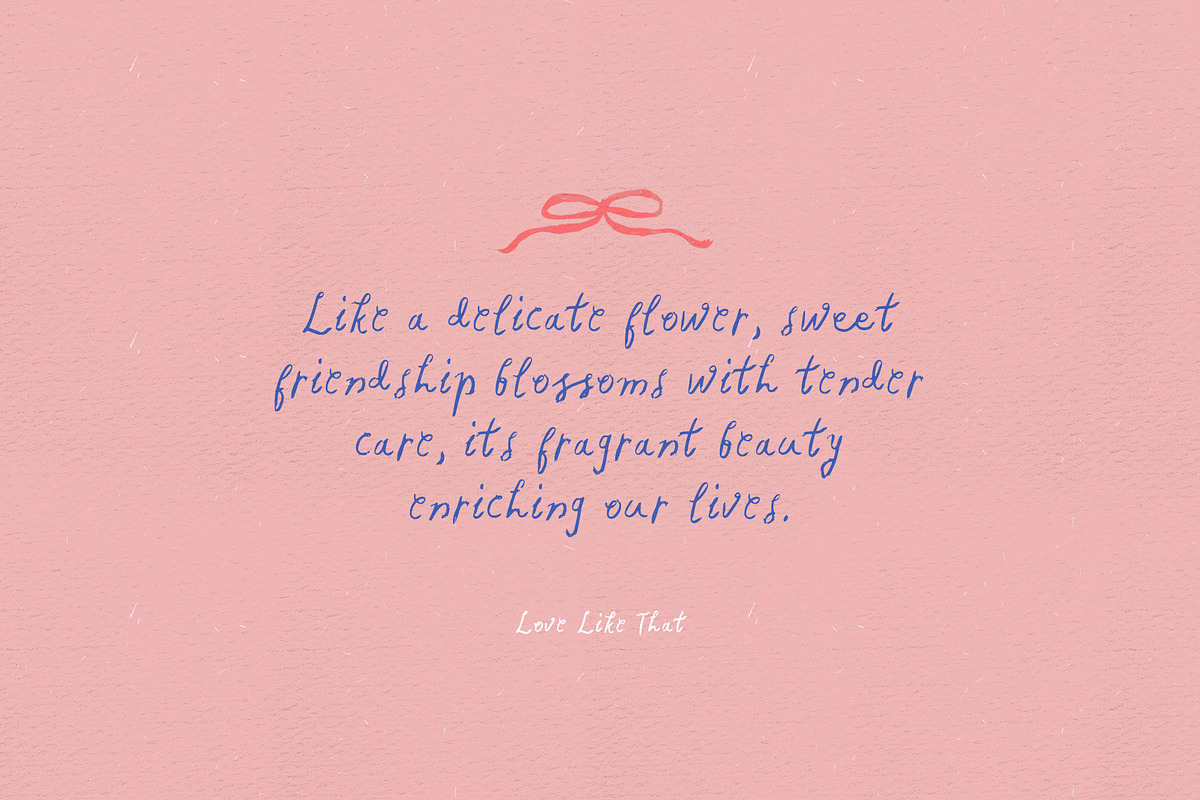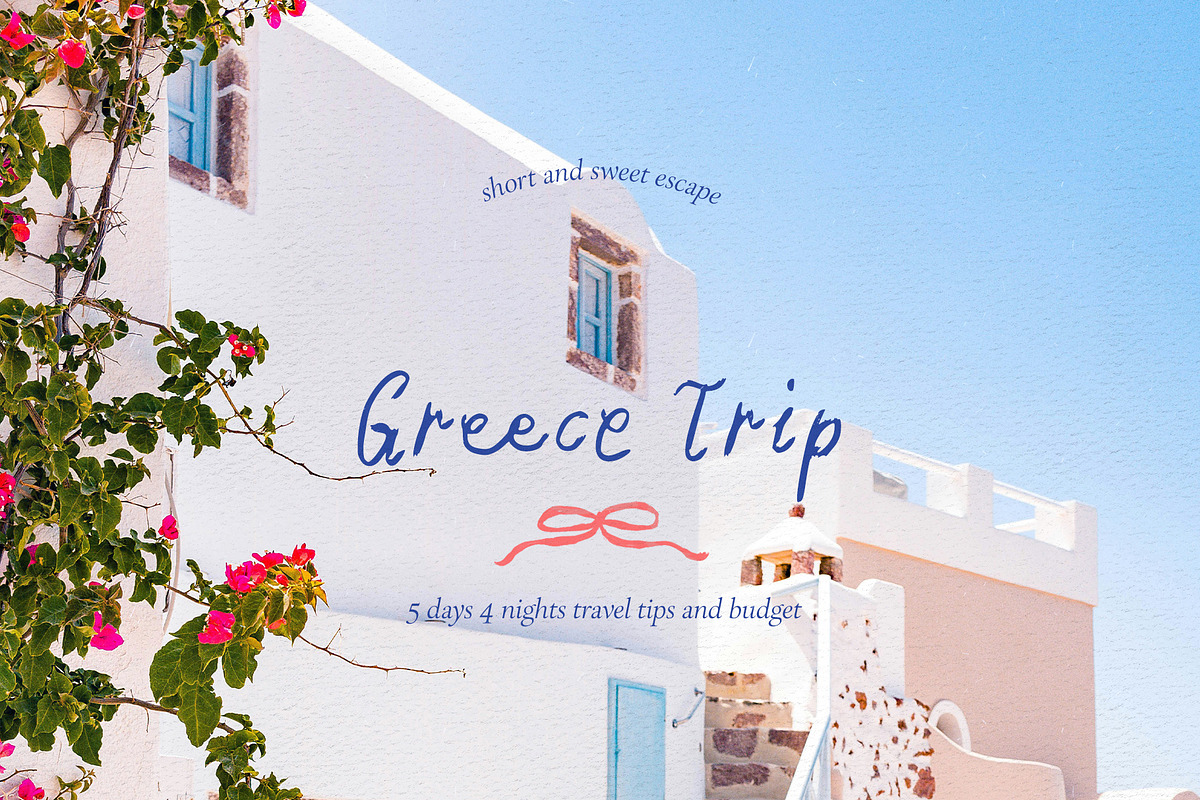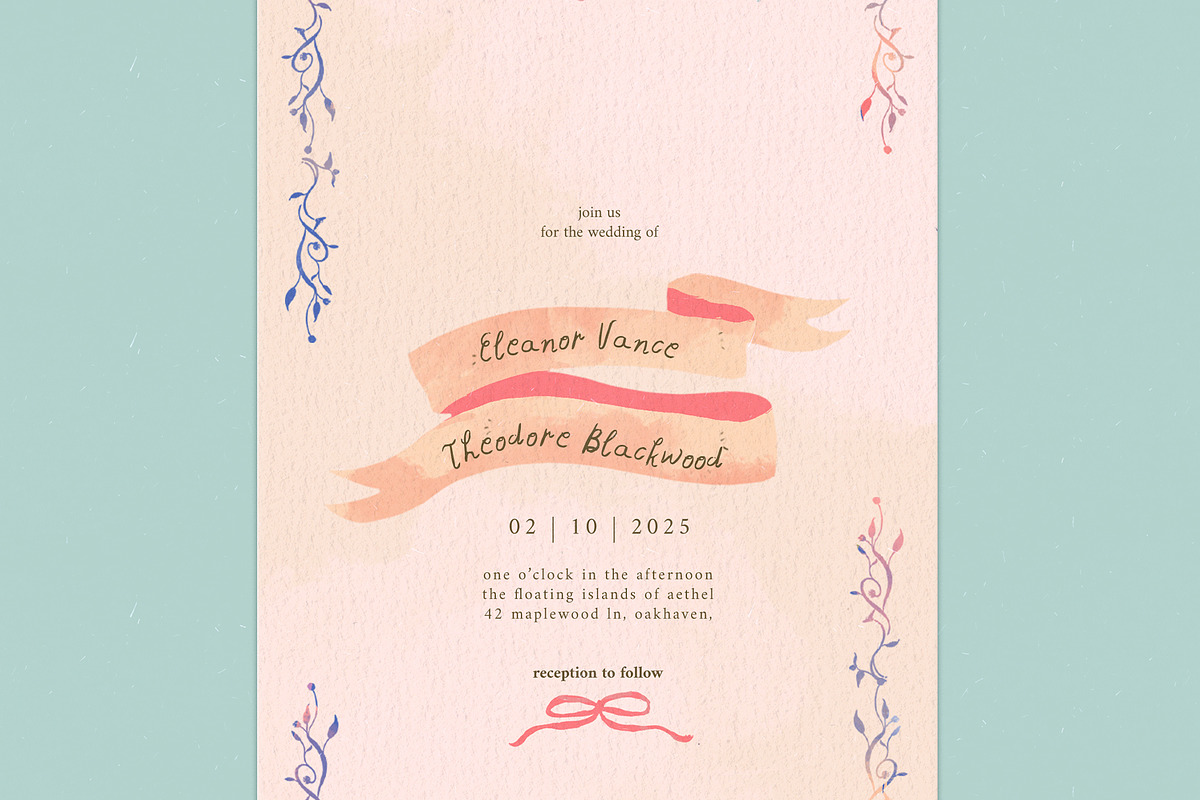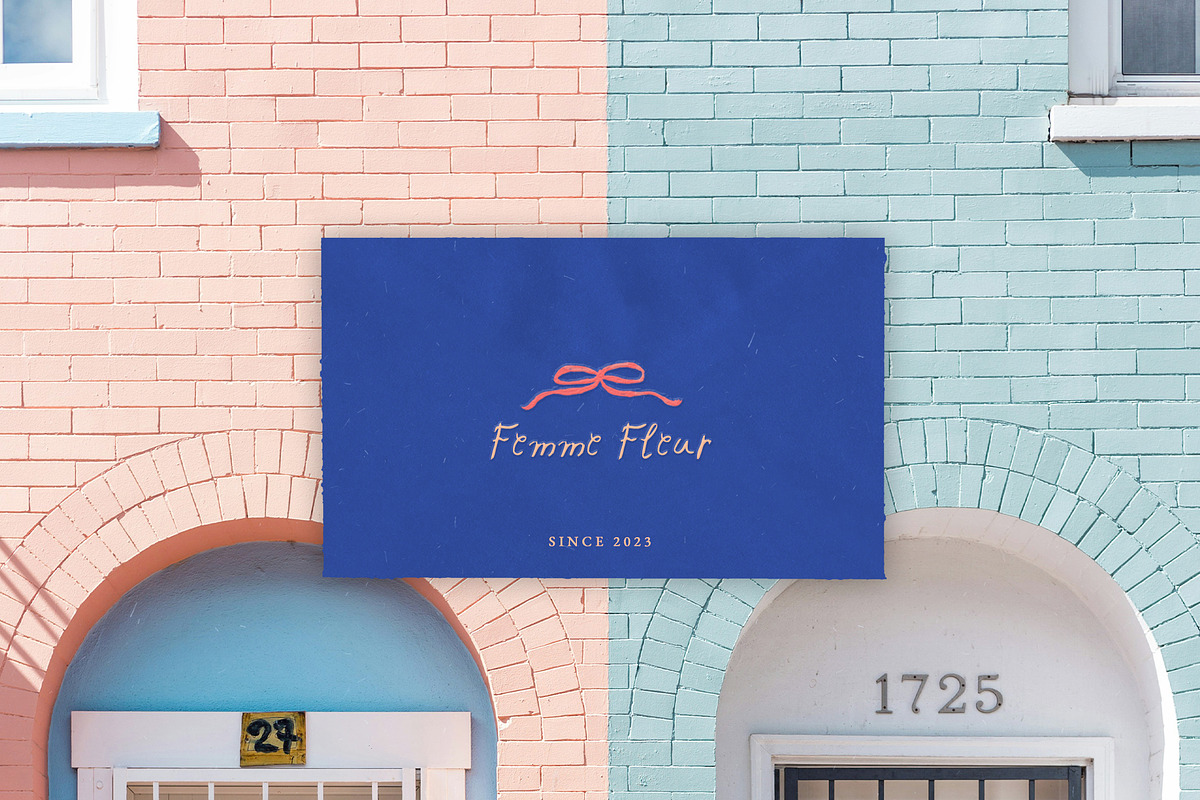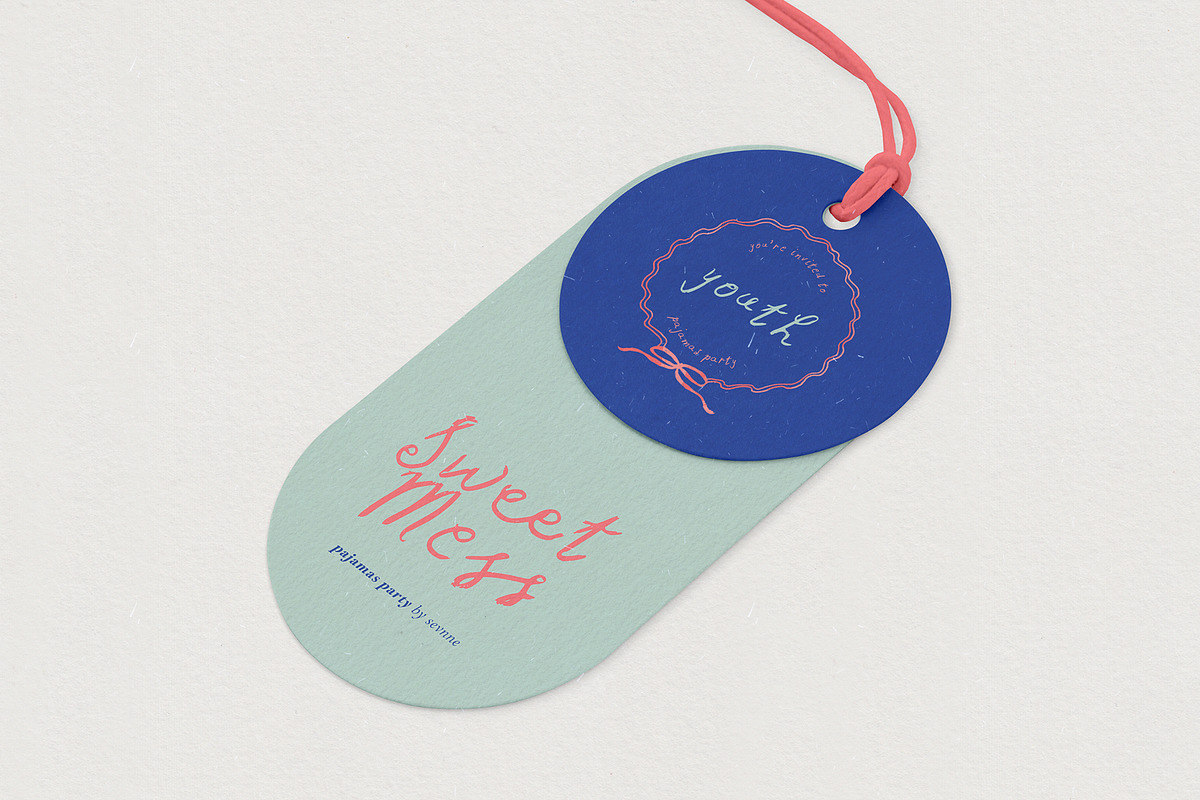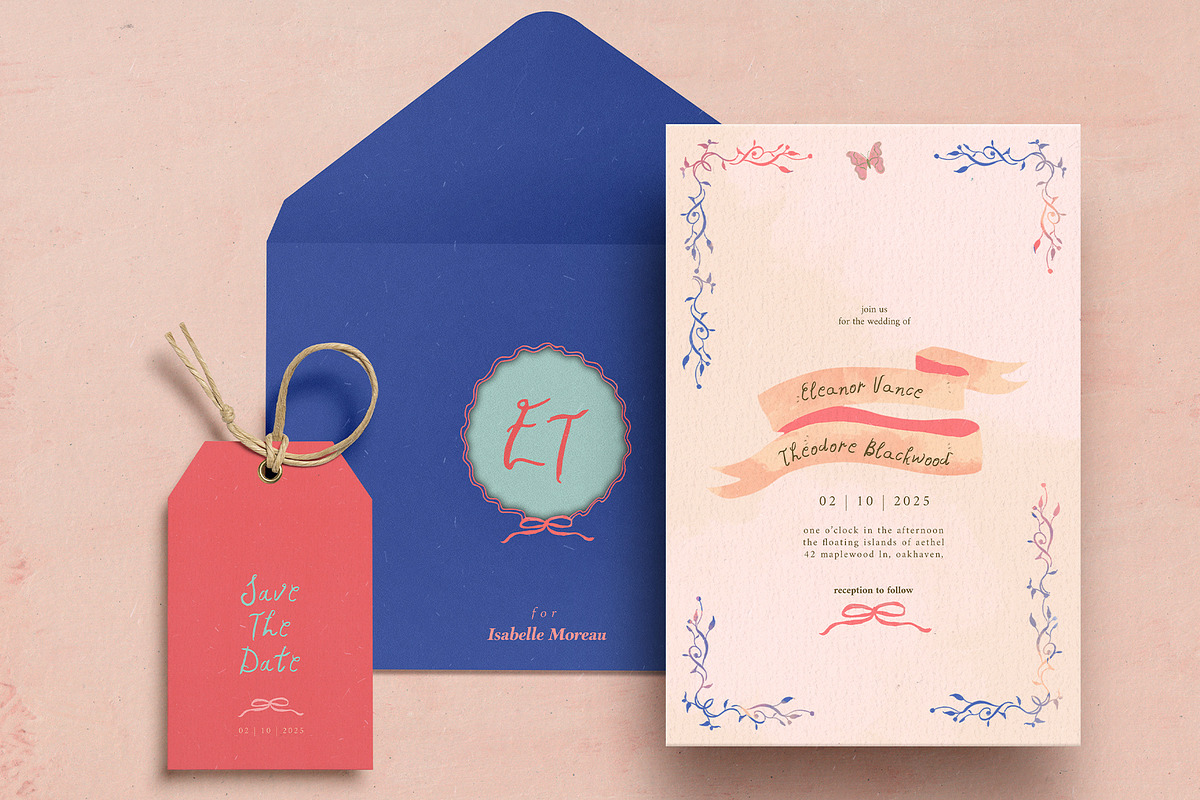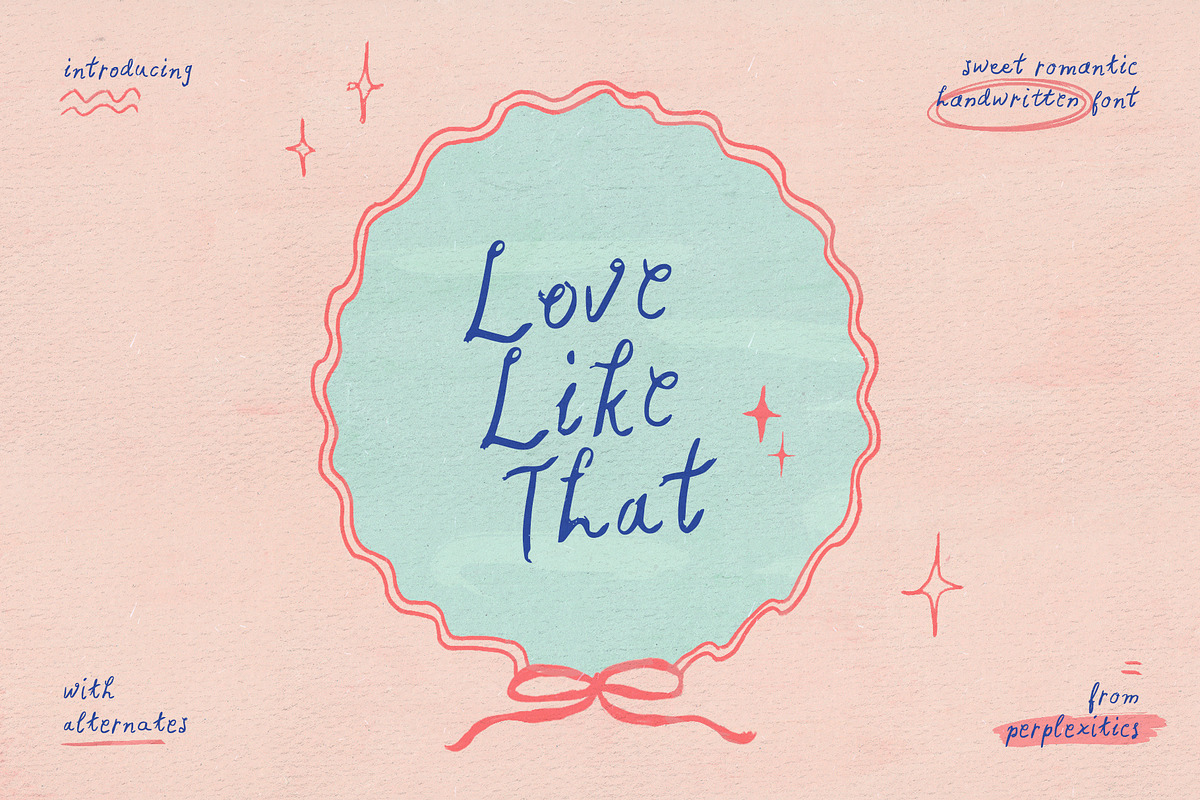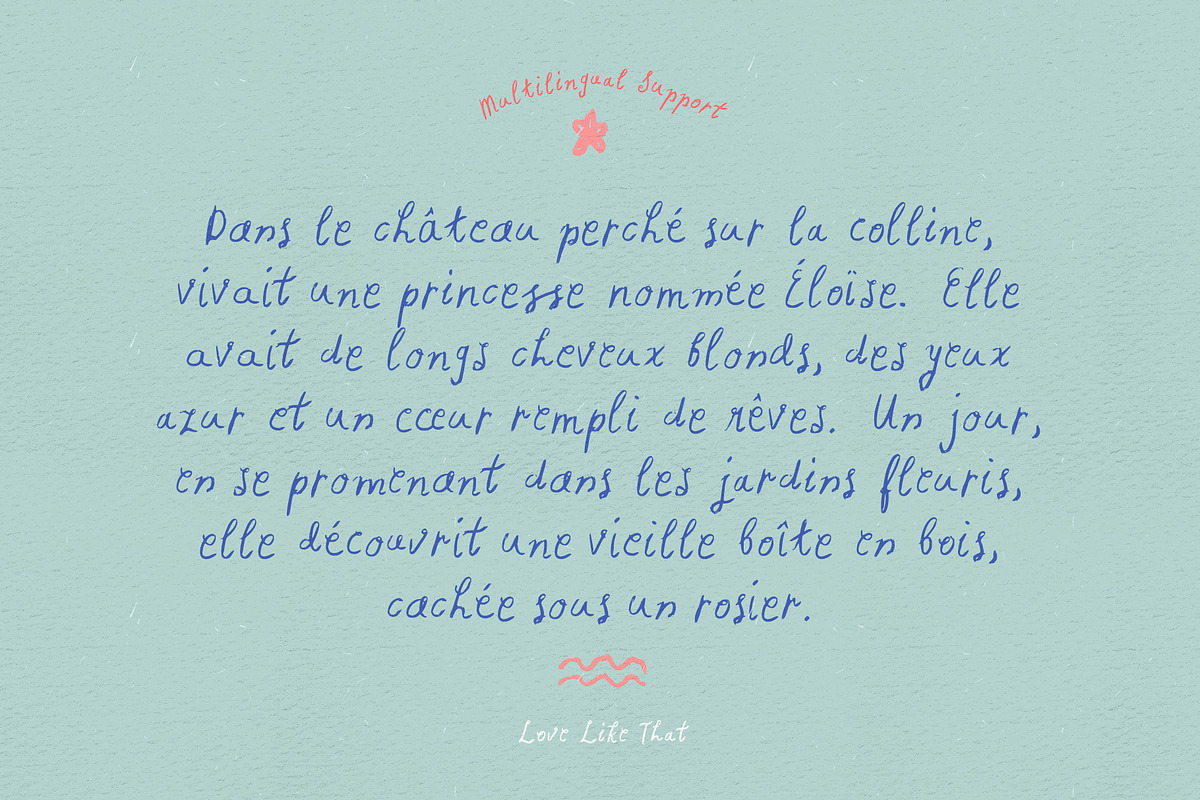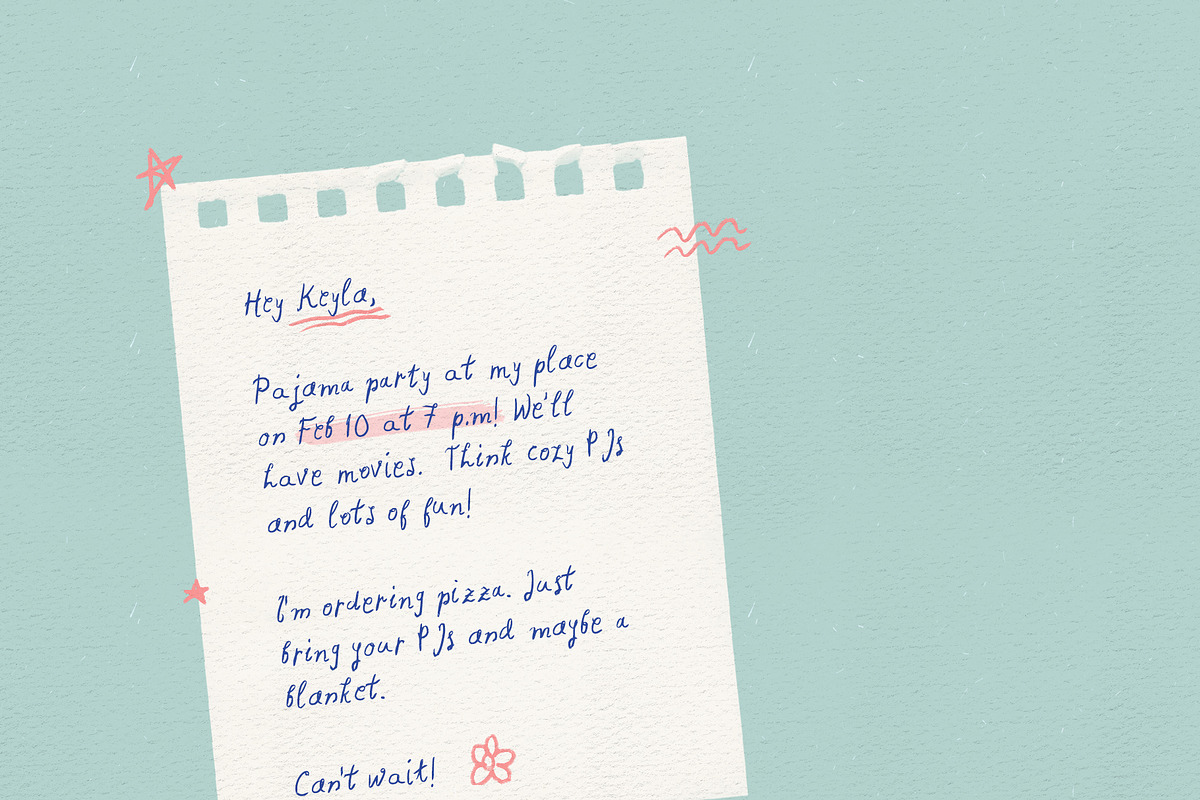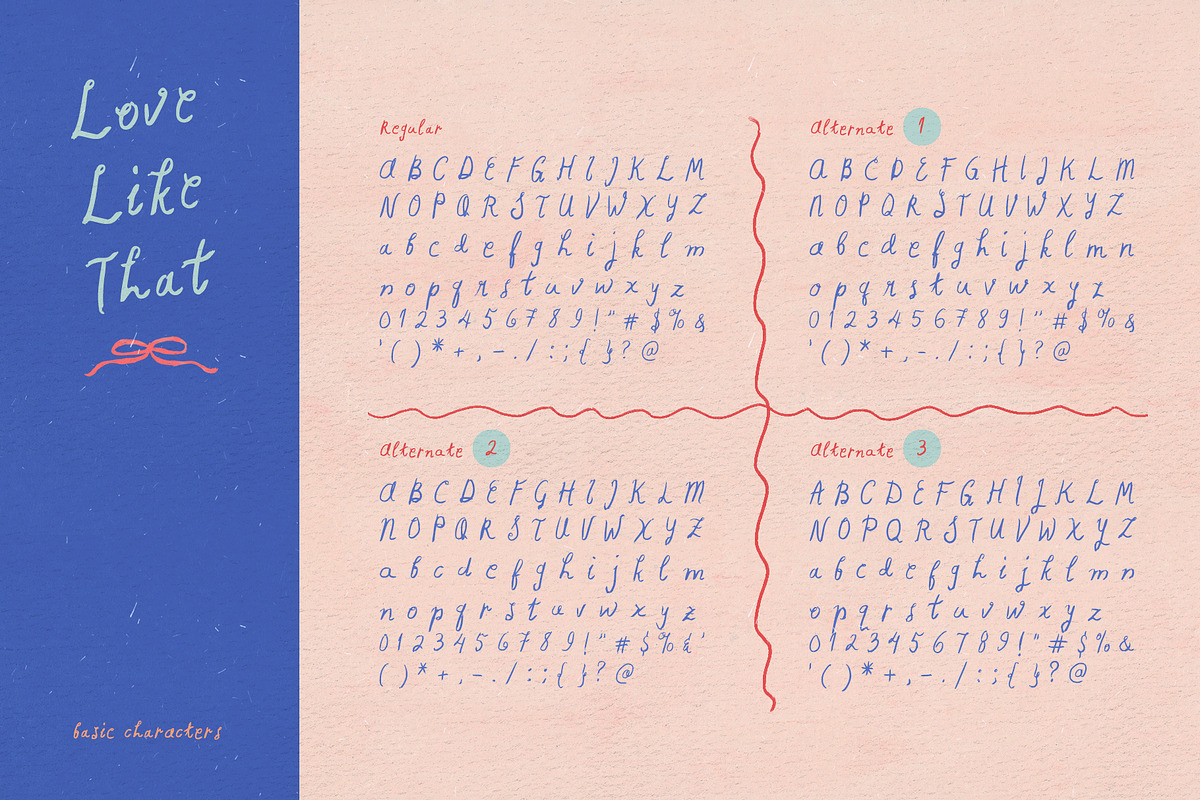
Love Like That Sweet Handwritten
This "Love Like That" sweet and romantic typeface includes 3 alternates, offering a variety of options for your creative projects. From wedding designs to everyday expressions of love, this is the perfect handwritten font. Use it for invitations, social media posts, branding, and anything that needs a touch of loving sentiment.
Love Like That Font is packed with everything you need, including uppercase and lowercase letters, numbers, and punctuation. Multilingual support.